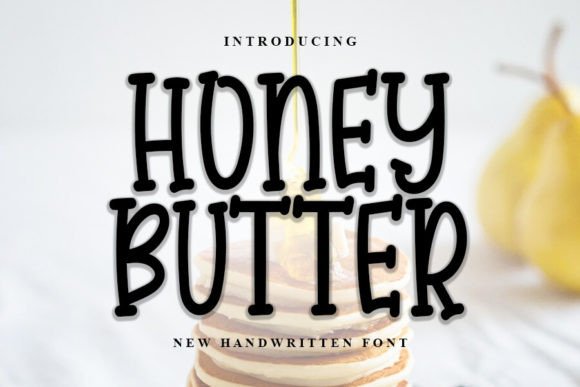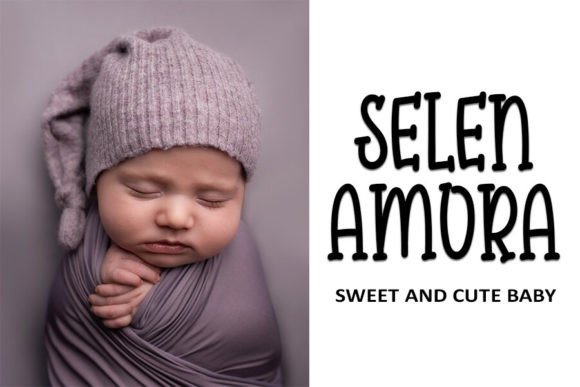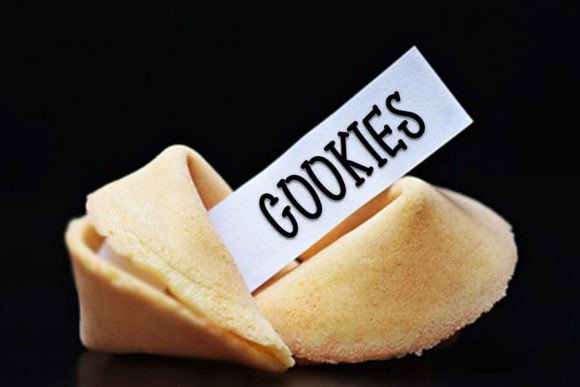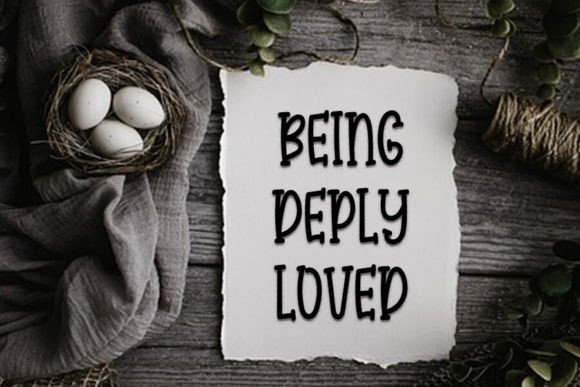
Honey Butter Font: Cute Handwritten Font for Cricut & DIY Projects
About the Honey Butter Font
From logos to headlines, the Honey Butter Font is the perfect choice for making a lasting impression. Honey Butter is a stylish handwritten font with a contemporary atmosphere and impeccable form, inspired by a timeless classic calligraphy. Balanced and varied, this font was designed to enhance the beauty of your projects.
Honey Butter’s elegant yet approachable style makes it ideal for branding projects requiring a touch of sophistication, particularly logos, short headlines, and packaging design where its unique character can shine. It also works well for invitations and short quotes in marketing materials. However, its handwritten nature makes it less suitable for body text or lengthy paragraphs, and its decorative elements might be distracting in UI applications.
Consider pairing Honey Butter with a clean sans-serif like Montserrat for a modern contrast, or a classic serif such as Garamond for a more timeless feel. For a playful juxtaposition, a geometric sans-serif such as Futura could be effective. The font’s overall personality is best described as sophisticated yet friendly, balancing elegance with approachability.
Honey Butter Font Example